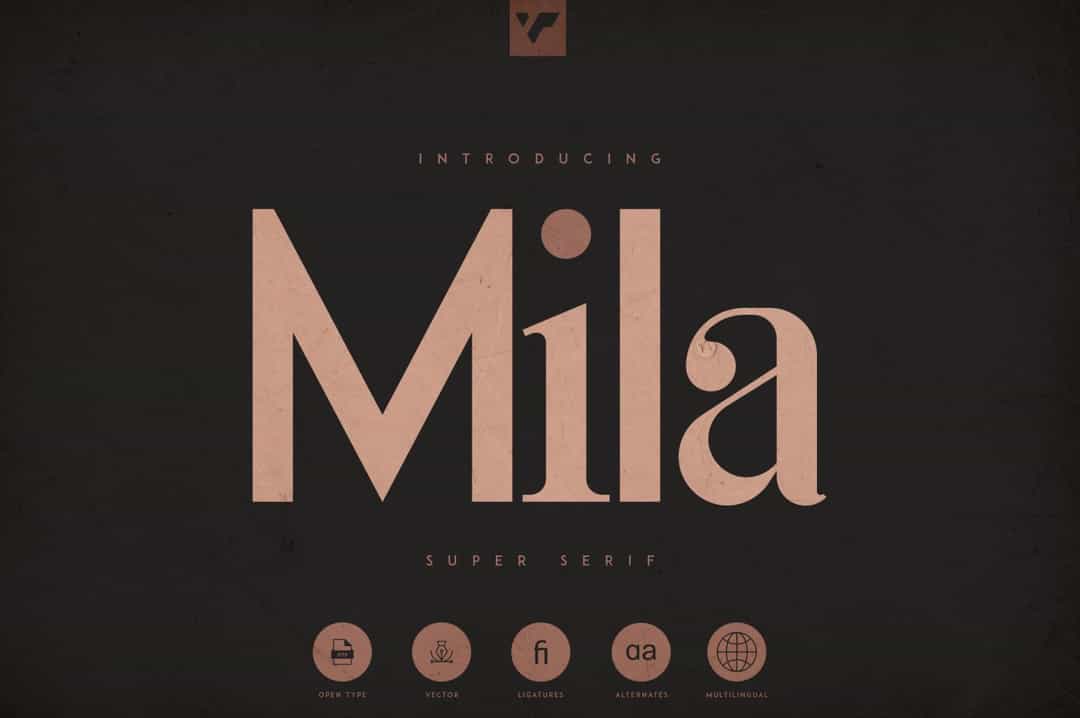
Mila Font is a combination of serif and sans serif styles, complete with ligature glyphs and multilingual support. Perfect for homeware projects, branding designs, packaging for product magazines or simply adding elegance to any background picture – Mila works beautifully at both small and large sizes! Mila works exceptionally well as an everyday font.